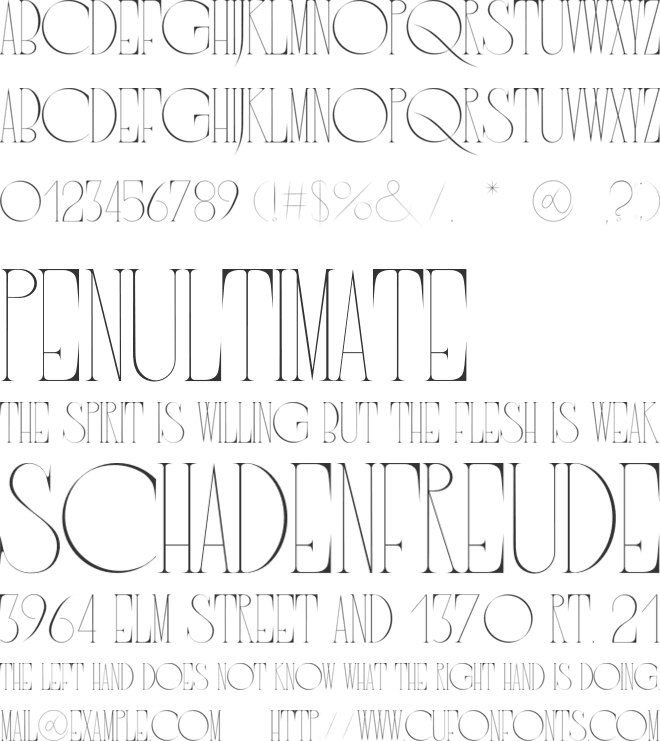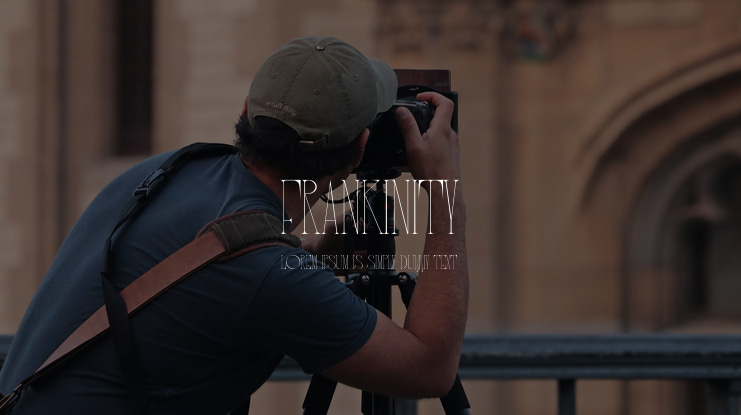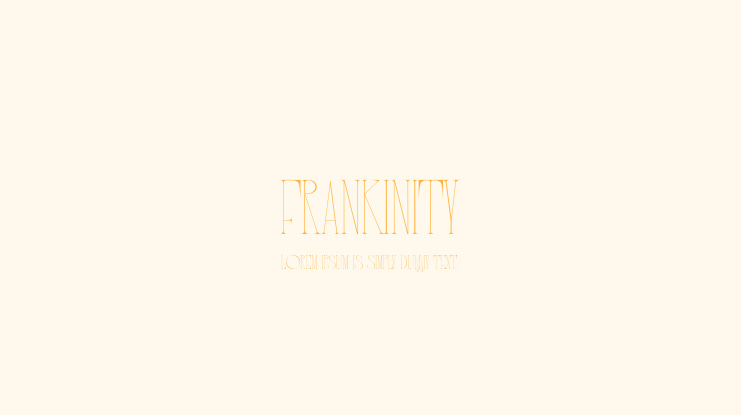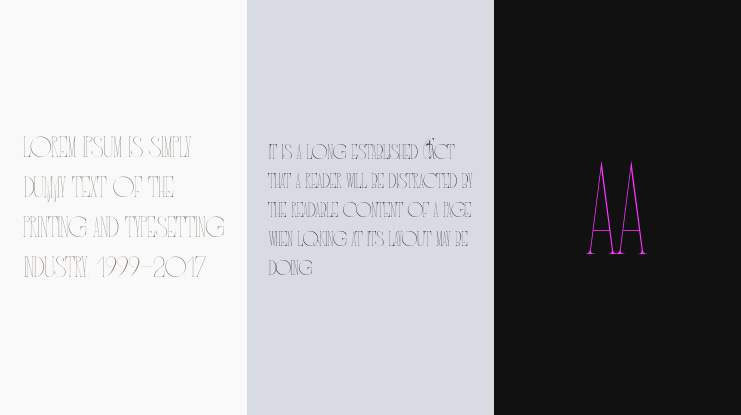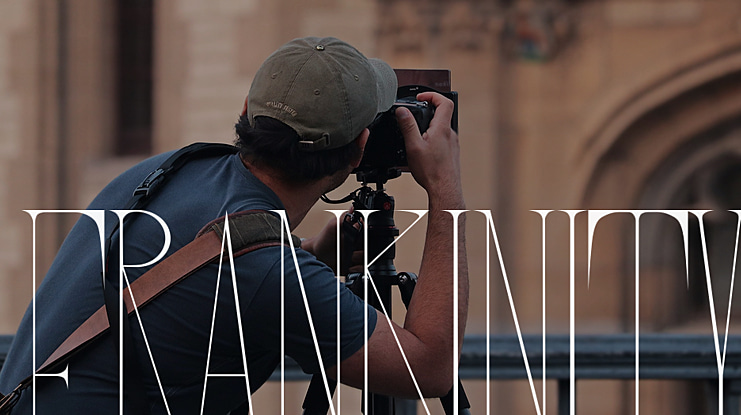
FRANKINITY Font
This is a free serif typeface, carefully handcrafted to become a true favorite. Their combination makes the font perfect for elegant modern branding and logo design, fascinating editorial design and posters, expressive packaging and countless other projects.